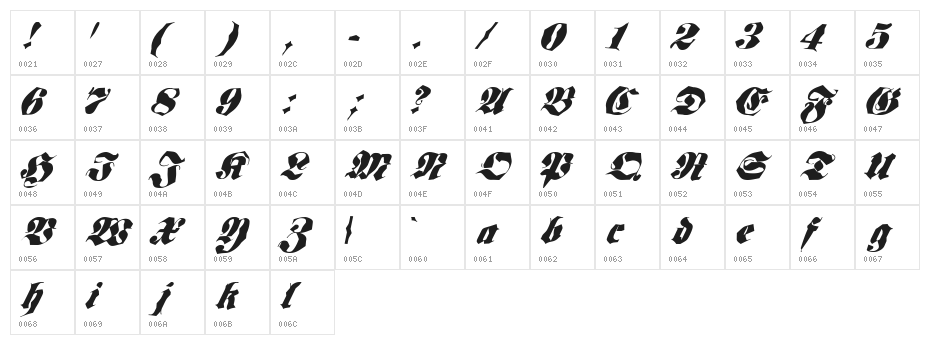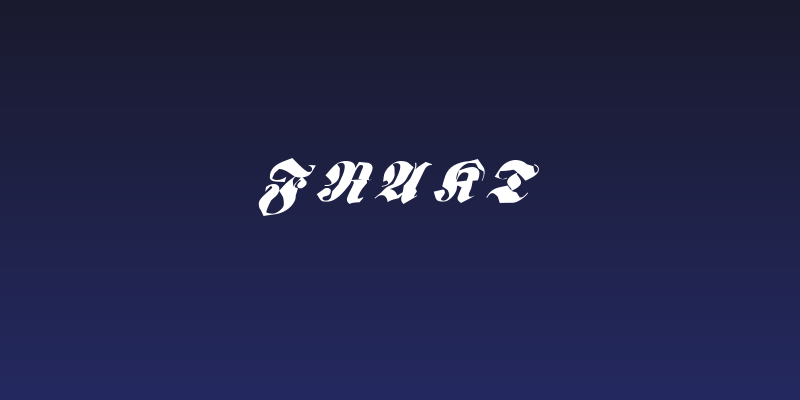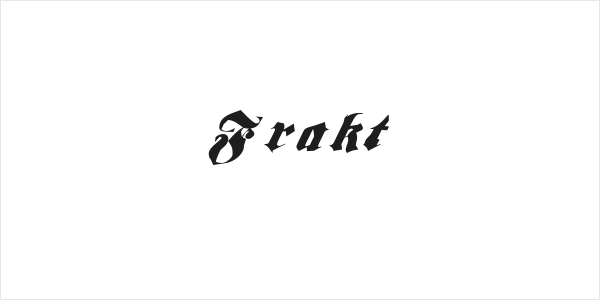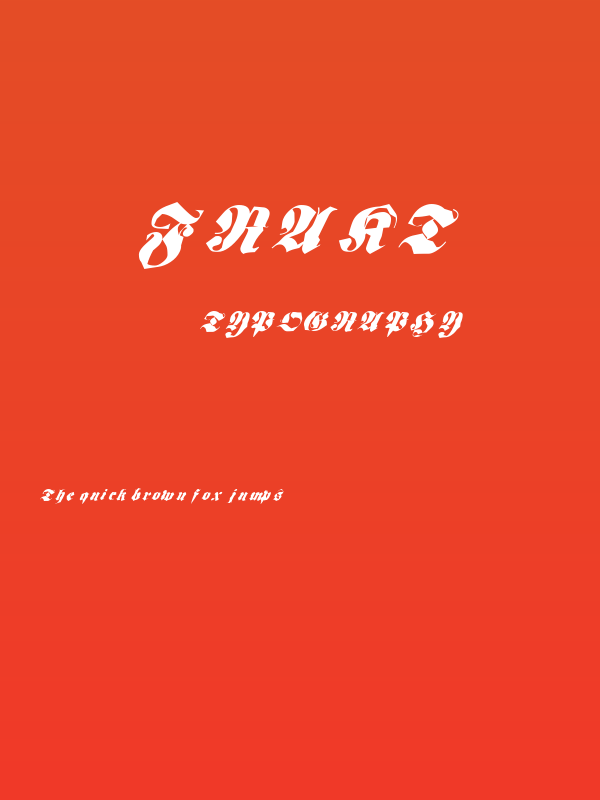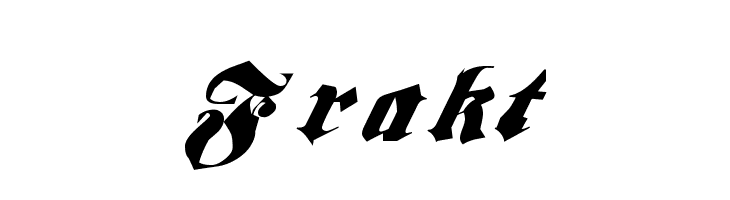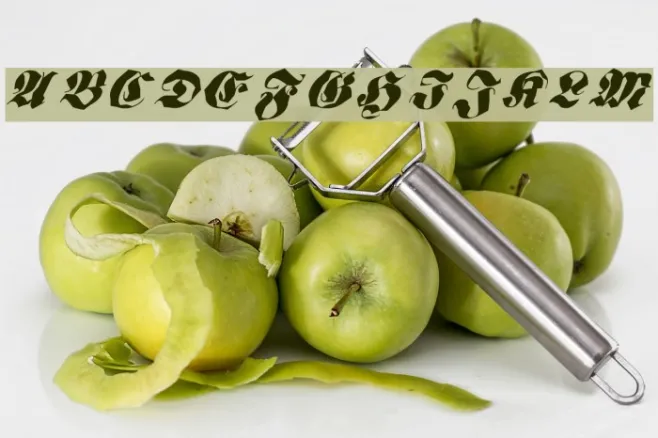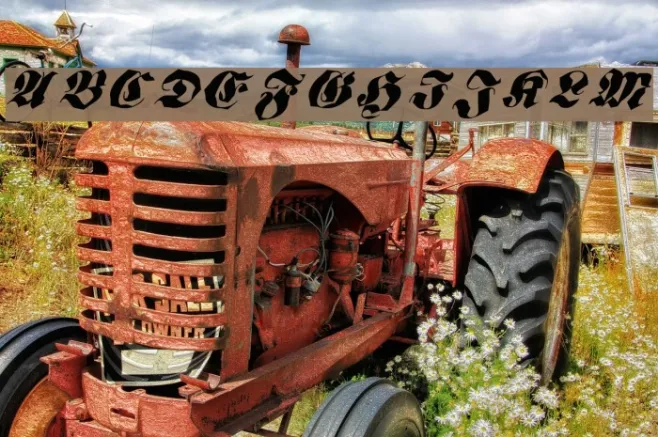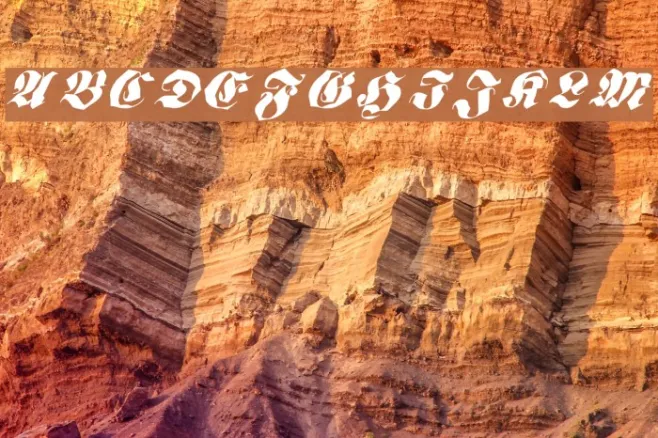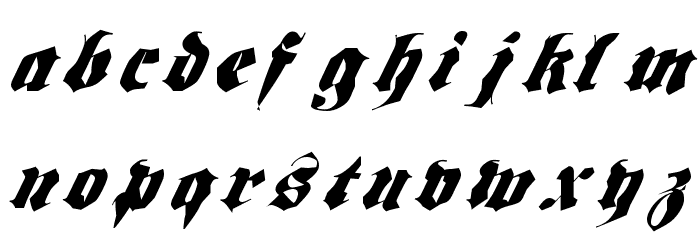
Frakt Font
Frakt Description
This font embodies a classic blackletter style, characterized by its intricate and ornate letterforms. The uppercase letters are bold and dramatic, with sharp angles and elaborate flourishes that give a sense of historical elegance. The lowercase letters maintain the same level of detail, with a slightly more condensed appearance that enhances readability. Numbers and special characters are equally stylized, ensuring a cohesive look across all text. The font's overall appearance is reminiscent of medieval manuscripts, making it ideal for projects that require a touch of antiquity and sophistication.
| Overall Style | Vintage |
| Use Case | Logos, Headlines, Decorative text |
| Proposed Projects | Ideal for historical documents, certificates, wedding invitations, or any project requiring a medieval or gothic aesthetic. |